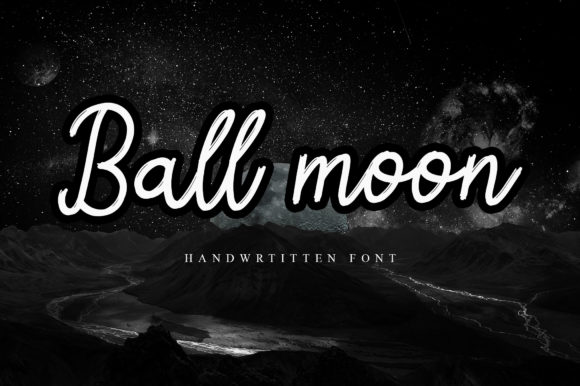
Introducing Ball Moon Font: The Perfect Cursive Brushed Script for Modern Designs
In the world of typography, fonts play a crucial role in conveying the tone and personality of a brand or design. With the vast array of fonts available, it can be overwhelming to choose the right one that captures the essence of your project. However, if you’re looking for a font that exudes modernity and sophistication, look no further than Ball Moon Font. This stunning cursive brushed script font is designed to elevate your branding and digital designs to new heights.
What is Ball Moon Font?
Ball Moon Font is a beautiful, hand-crafted cursive script font that boasts an authentic and modern look. Its unique, brushed strokes give it a distinctive feel that’s both elegant and trendy. This font is perfect for designers who want to add a touch of personality to their work, whether it’s for a logo, social media graphics, or website headers.
Key Features of Ball Moon Font
- Cursive Brushed Script: Ball Moon Font features smooth, connected letters with a brushed effect that gives it a hand-crafted feel.
- Modern Look: The font’s sleek and clean design makes it perfect for modern branding and digital designs.
- Authentic Feel: The unique, hand-crafted strokes of Ball Moon Font give it an authentic feel that’s hard to replicate with generic fonts.
- Versatile: This font is suitable for a wide range of design projects, from logos and social media graphics to website headers and more.
Why Choose Ball Moon Font?
With so many fonts available, it’s essential to choose one that aligns with your design goals and objectives. Here are some compelling reasons to choose Ball Moon Font for your next project:
1. Stand Out from the Crowd
In a sea of generic fonts, Ball Moon Font offers a refreshing change. Its unique, cursive brushed script design ensures that your designs will stand out and grab attention.
2. Perfect for Branding
Ball Moon Font is an excellent choice for branding projects, as it helps create a consistent visual identity for your brand. Its modern look and feel make it perfect for businesses that want to appear sleek and sophisticated.
3. Easily Readable
Despite its cursive nature, Ball Moon Font is remarkably legible, making it suitable for body text and headlines. This ensures that your message is conveyed clearly, without sacrificing style.
4. Endless Possibilities
Ball Moon Font is incredibly versatile, allowing you to experiment with various design ideas and applications. From logos and social media graphics to website headers and more, the possibilities are endless.
How to Use Ball Moon Font in Your Designs
Using Ball Moon Font in your designs is straightforward. Here are some tips to get you started:
1. Pair it with Other Fonts
Combine Ball Moon Font with other fonts to create a unique visual hierarchy. You can use a sans-serif font for body text and Ball Moon Font for headlines or titles.
2. Experiment with Colors
Ball Moon Font looks stunning in a variety of colors. Experiment with different hues and shades to find the perfect combination that matches your brand’s color scheme.
3. Play with Textures and Patterns
Add an extra layer of depth to your designs by incorporating textures and patterns. Ball Moon Font pairs well with subtle textures and geometric patterns.
Ball Moon Font is a stunning cursive brushed script font that’s perfect for modern branding and digital designs. Its unique, hand-crafted strokes and modern look make it an excellent choice for designers who want to add a touch of personality to their work. With its endless possibilities and versatility, Ball Moon Font is sure to become a staple in your font library.